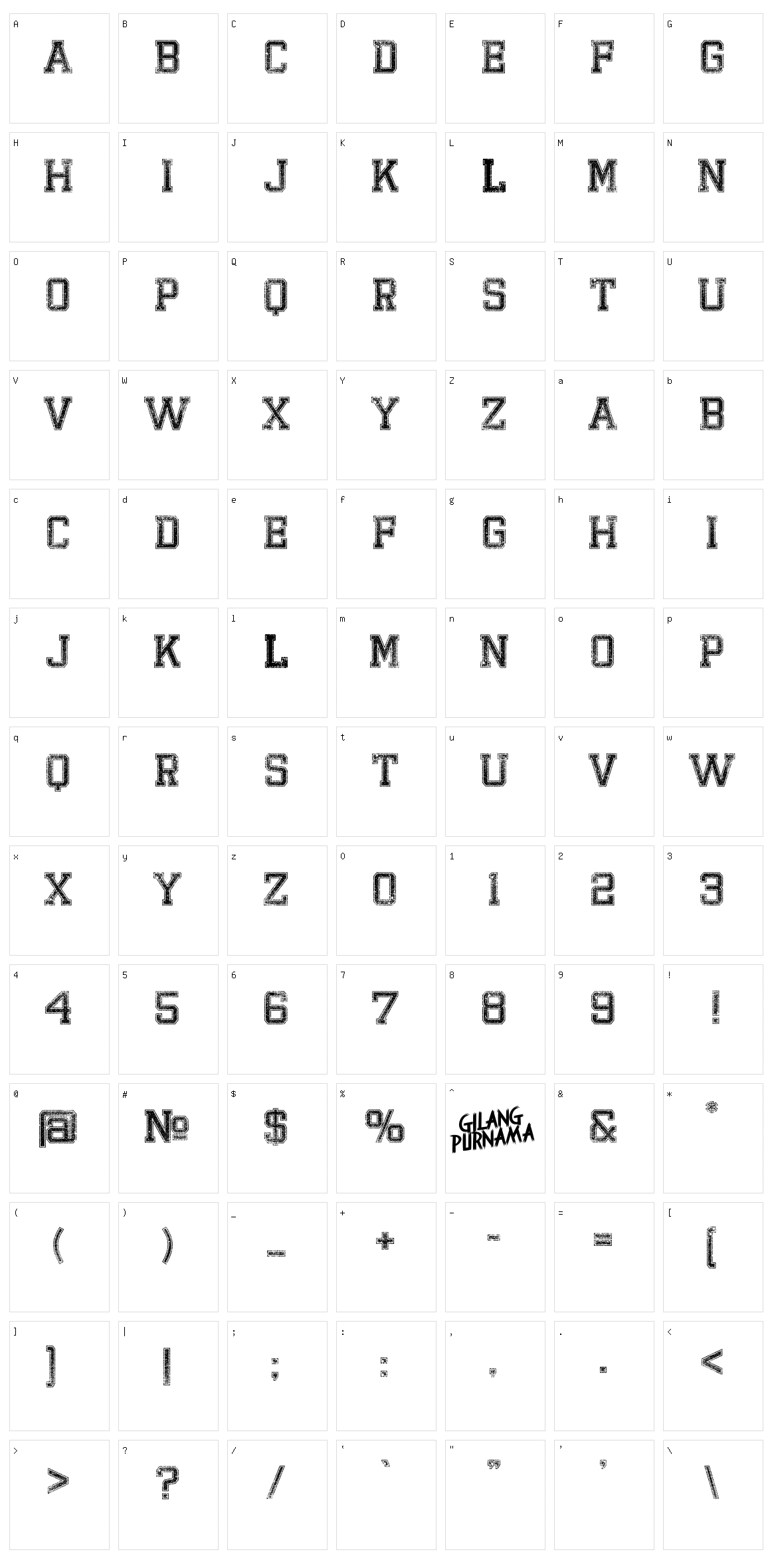
The free font Bandung Hardcore GP is carefully designed by Gilang Purnama Jaya, showcasing a thoughtful balance of creativity and usability and falls under the Old School font style. When you download the ZIP file, it contains only 549.84 KB of font files, making it lightweight and quick to download. Please review the license details below to understand permitted usage and distribution rights. If license information is not available, we recommend using this font for personal projects only or contacting the author directly for commercial usage permissions.